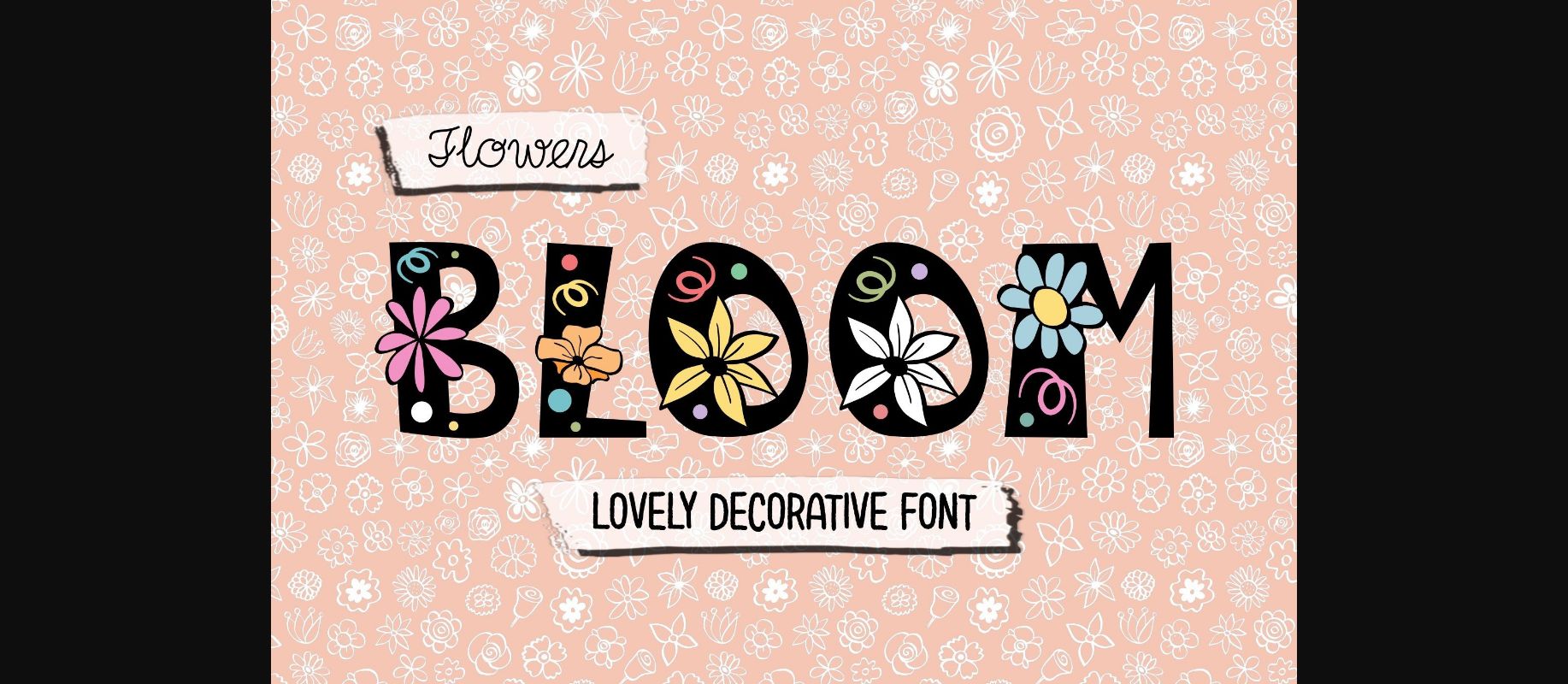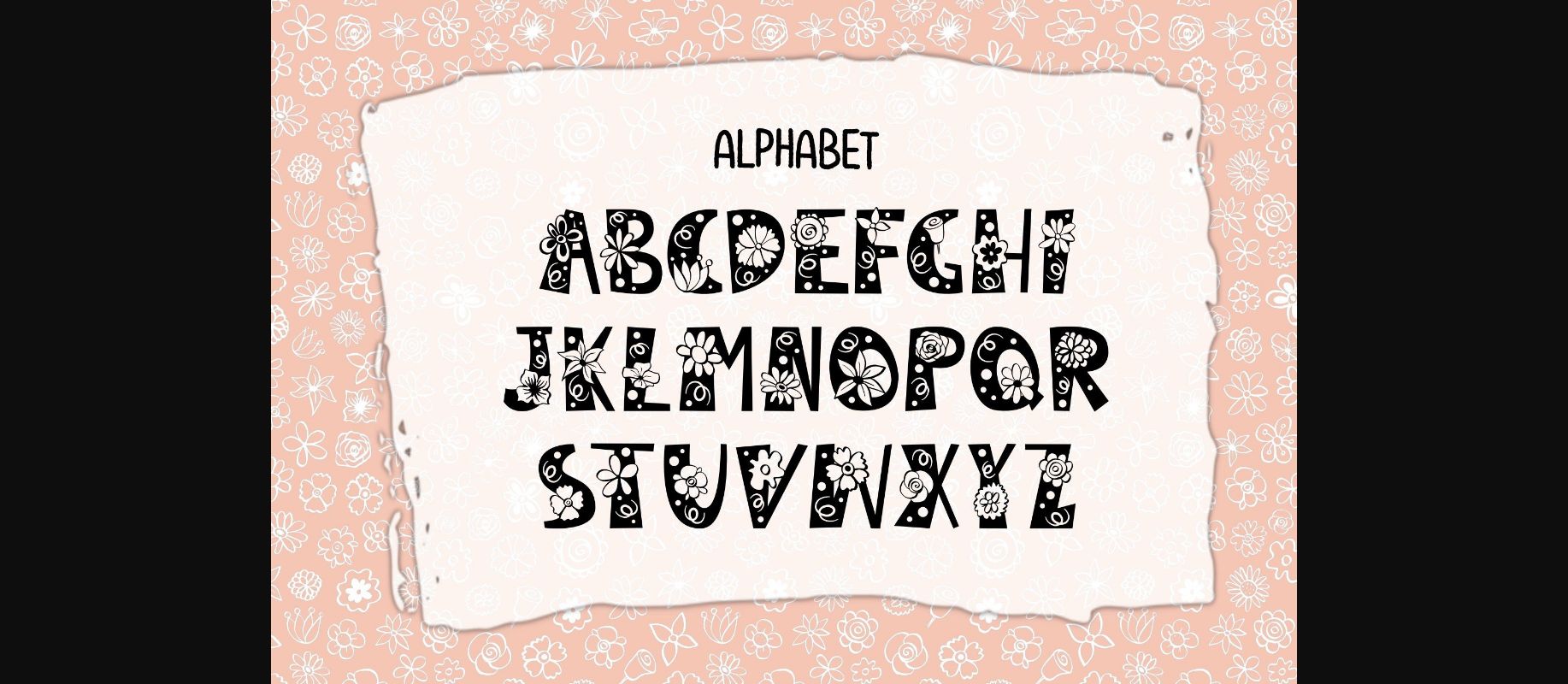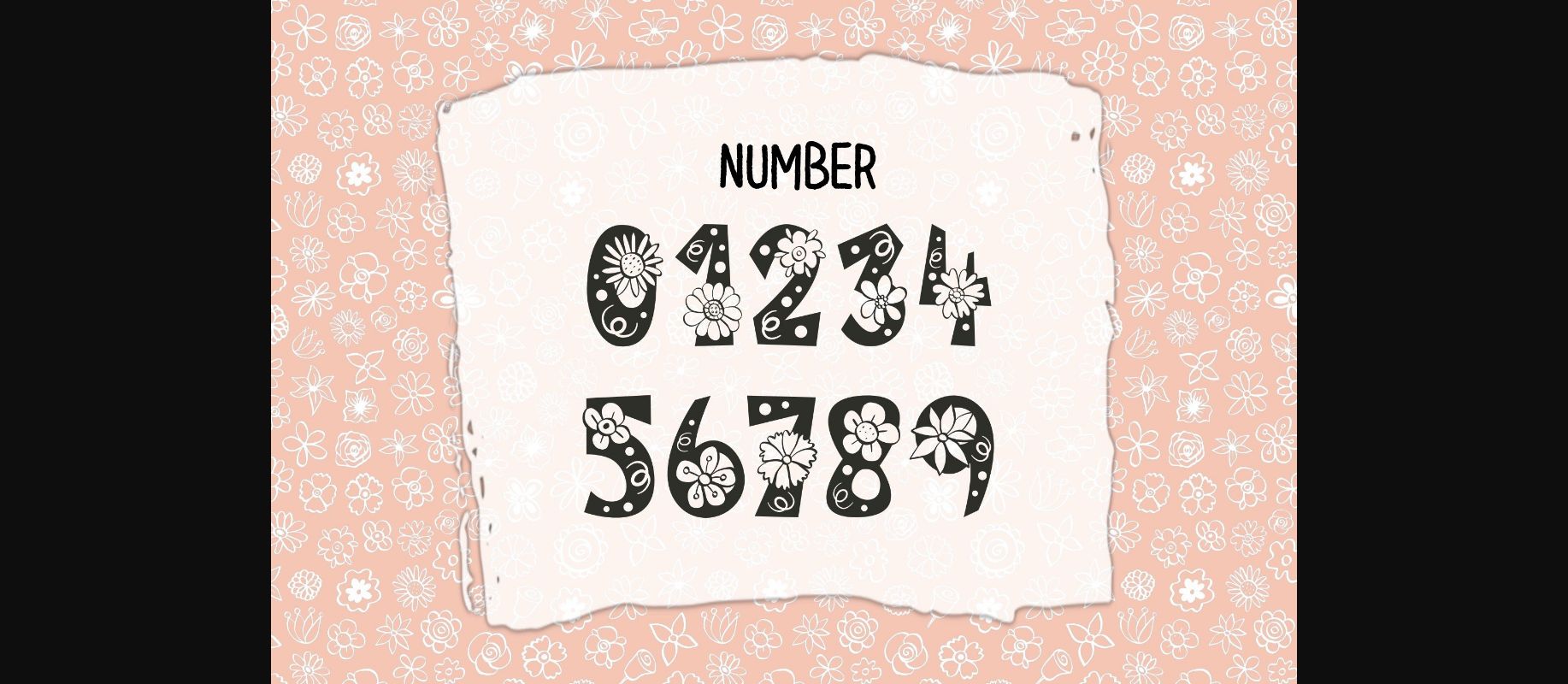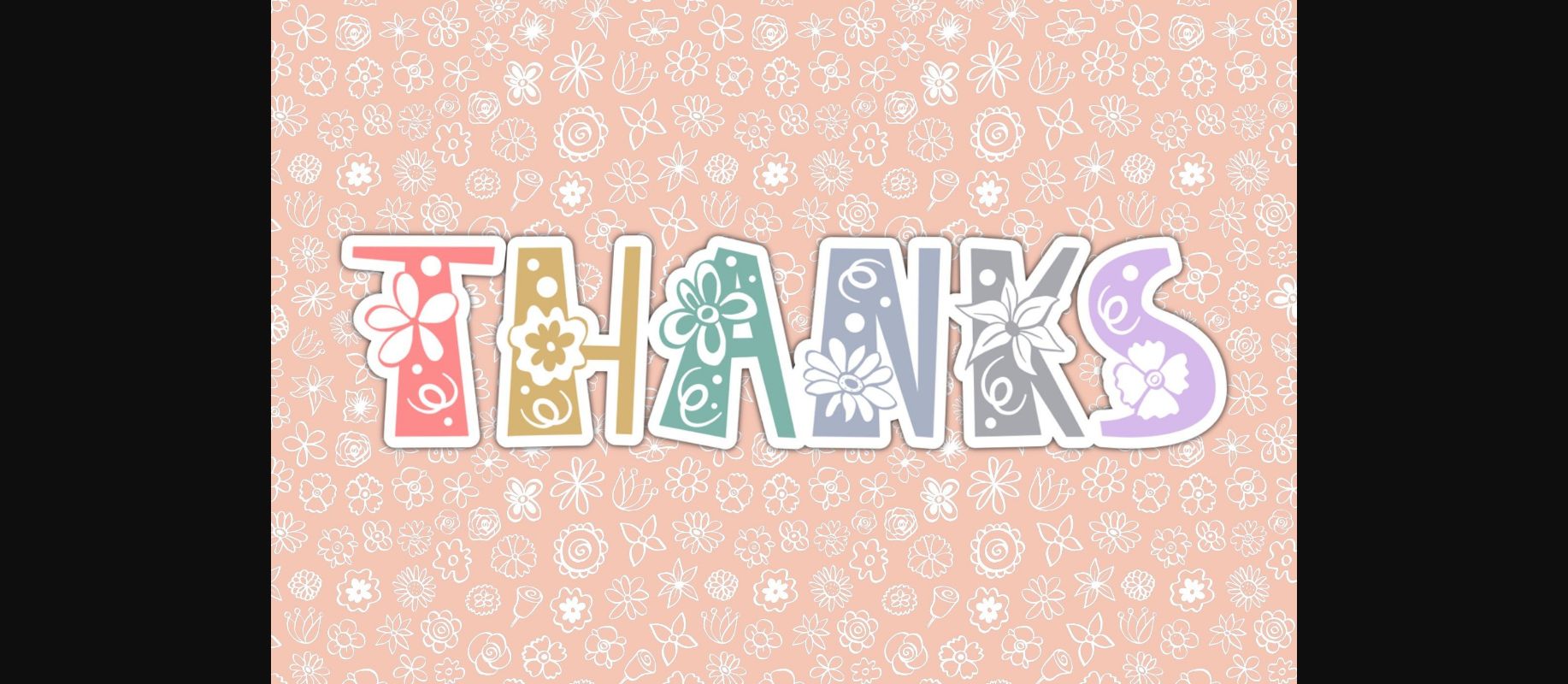
About Flowers Bloom Font
Flowers Bloom is a lovely decorative font. This font is the perfect fit for all of your logos, branding, social media, crafty DIY projects, and much more!